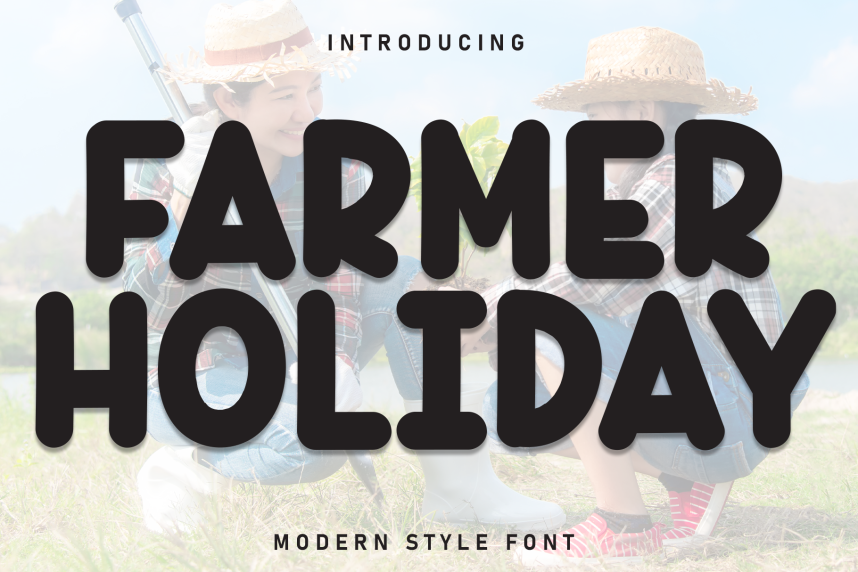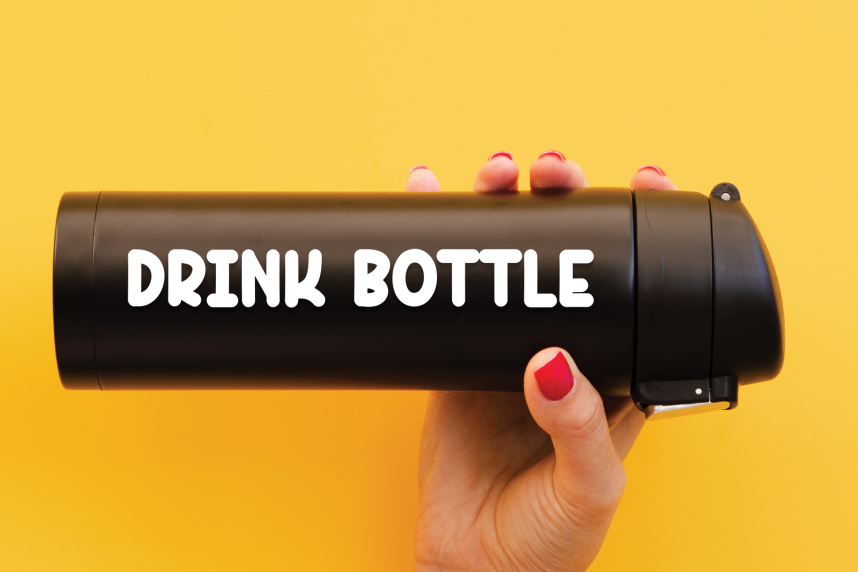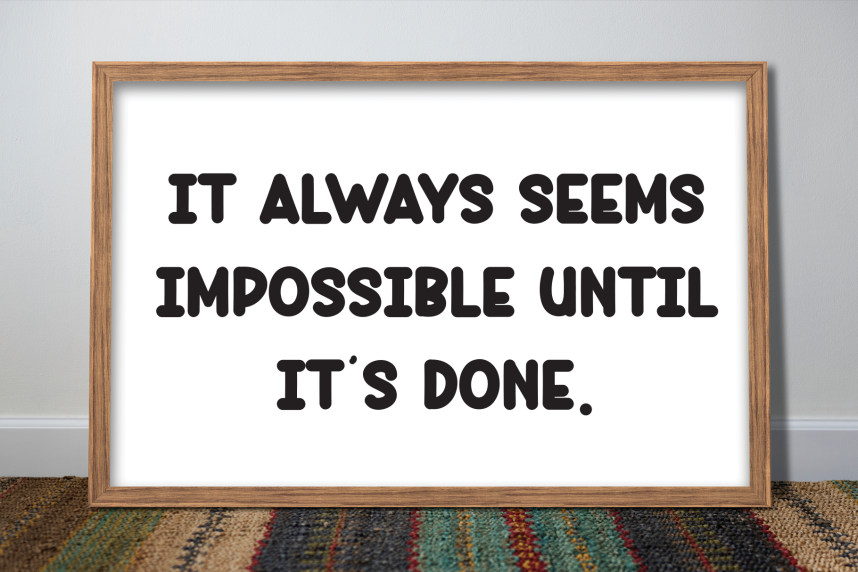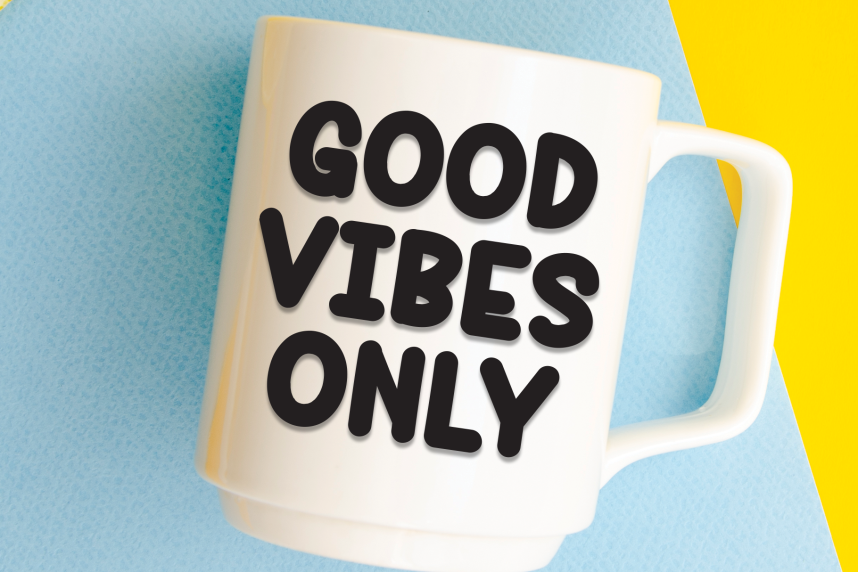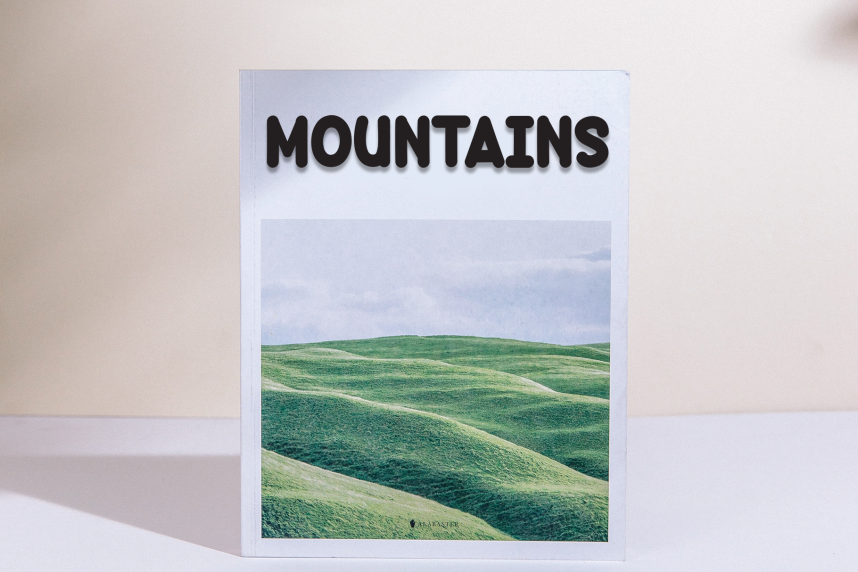
Farmer Holiday – Playful And Unique Font
Farmer Holiday – Playful And Unique Font is a sweet and friendly handwritten display font. Cute and fun, this font is ideal for writing wedding invitations, cards, or any other design that might need a playful touch!